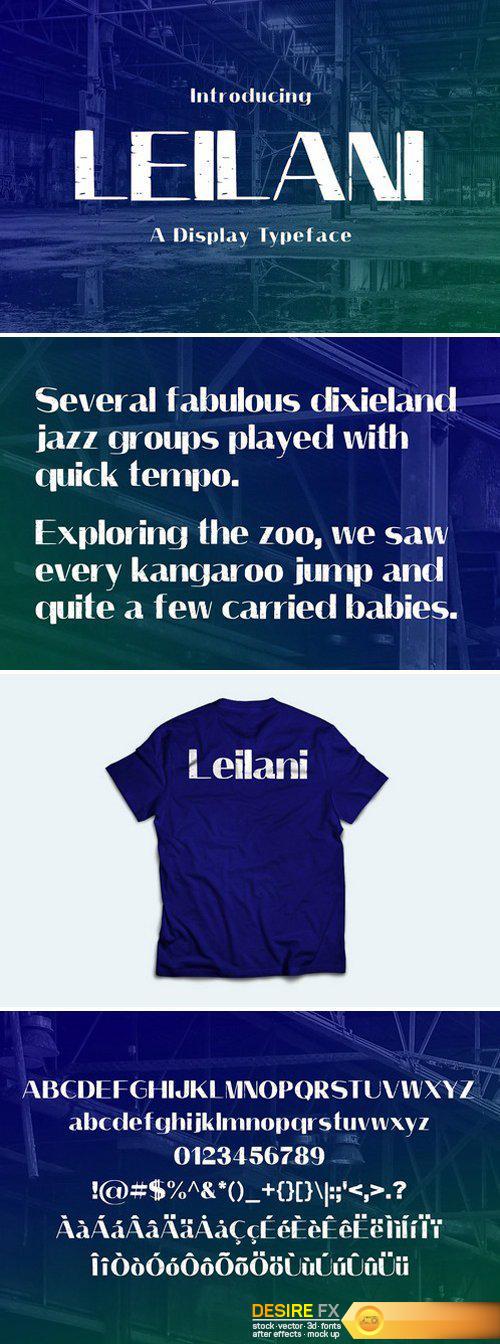
CM – Leilani Typeface 1832708
Leilani is a brand new modern font. Leilani is perfectly suited to stationery, logos, t-shirt, paper, print design, website header, photo frame, flyer, music cover, poster, image slider and much more.